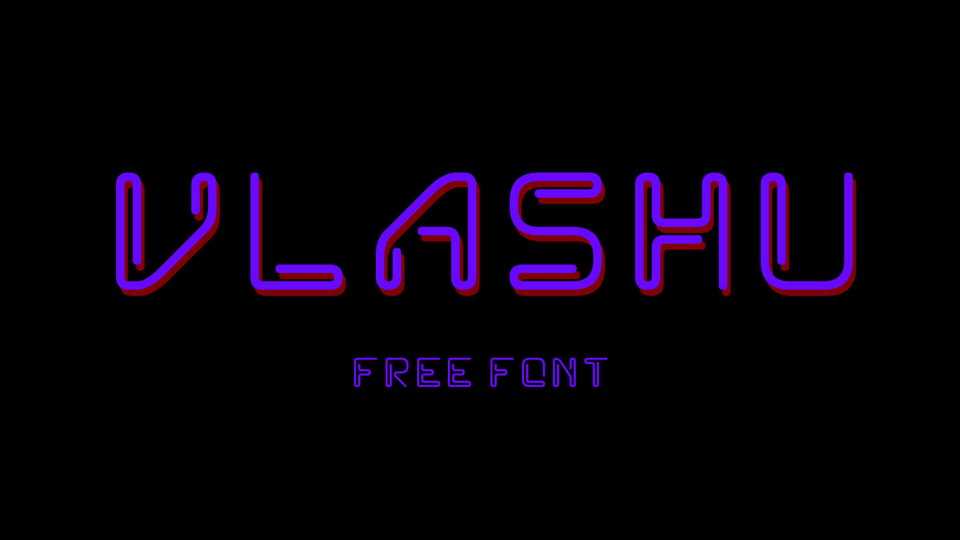
Download Vlashu font, a unique display typeface inspired by neon signs and complemented by a drop of imbalance. Vlashu is not perfect for any project.
Designer: Maxim Raikov